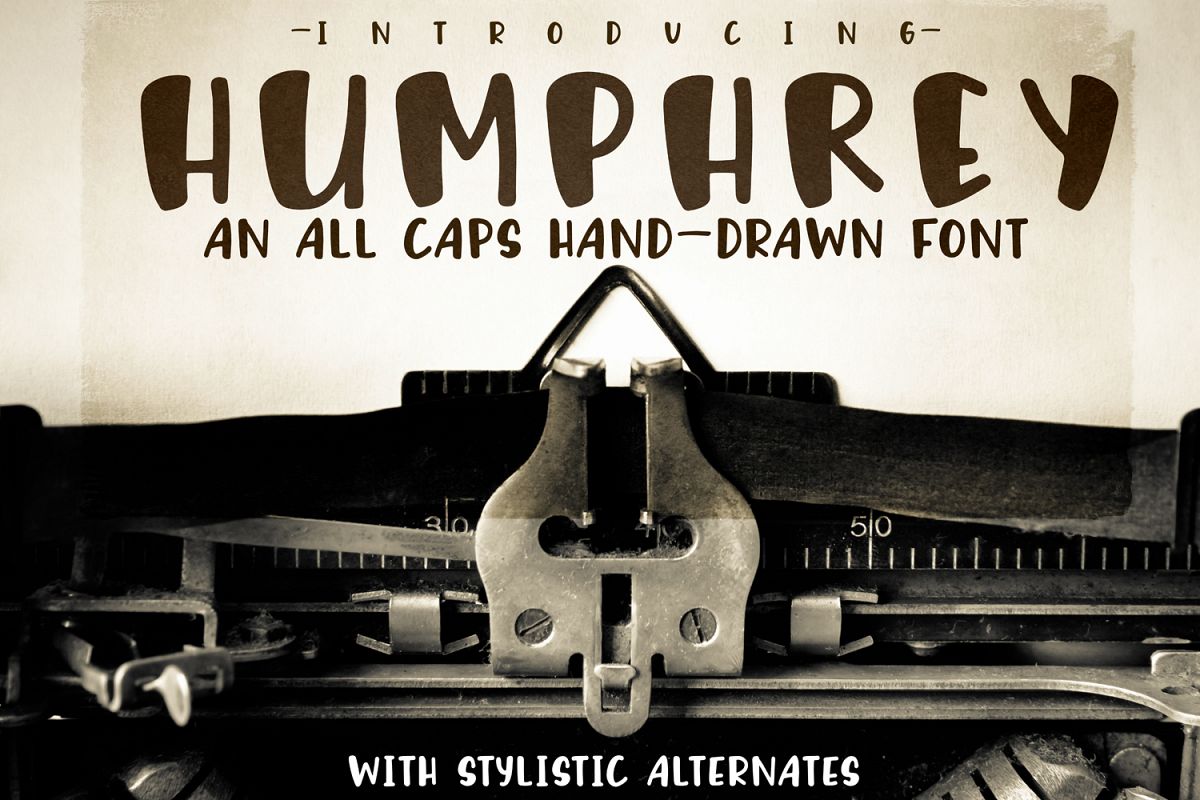
Give your designs a hand-lettered dose of personality with the Humphrey Handwritten Font! This all caps (two types) was designed to create a unique and genuine hand-lettered look and feel to all your projects.
Perfect for greeting cards, branding, social media, packaging, magazine layouts, prints and more!
*An uppercase caps style
*A lowercase caps style
*stylistic alternates for numbers ! and ? that are sized perfectly to work with the lowercase caps